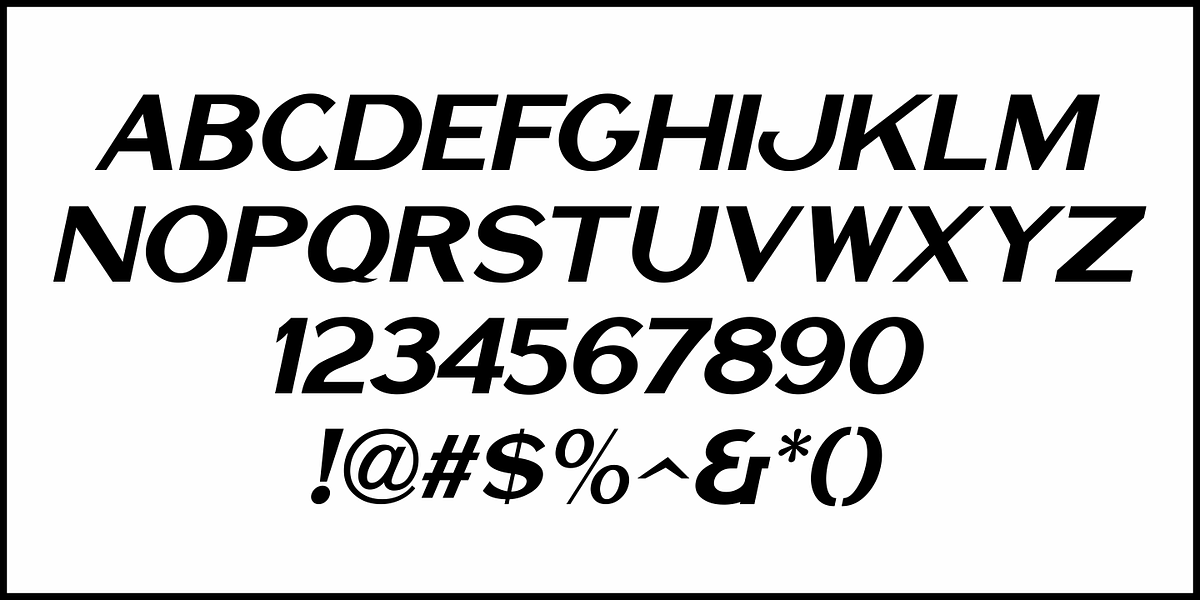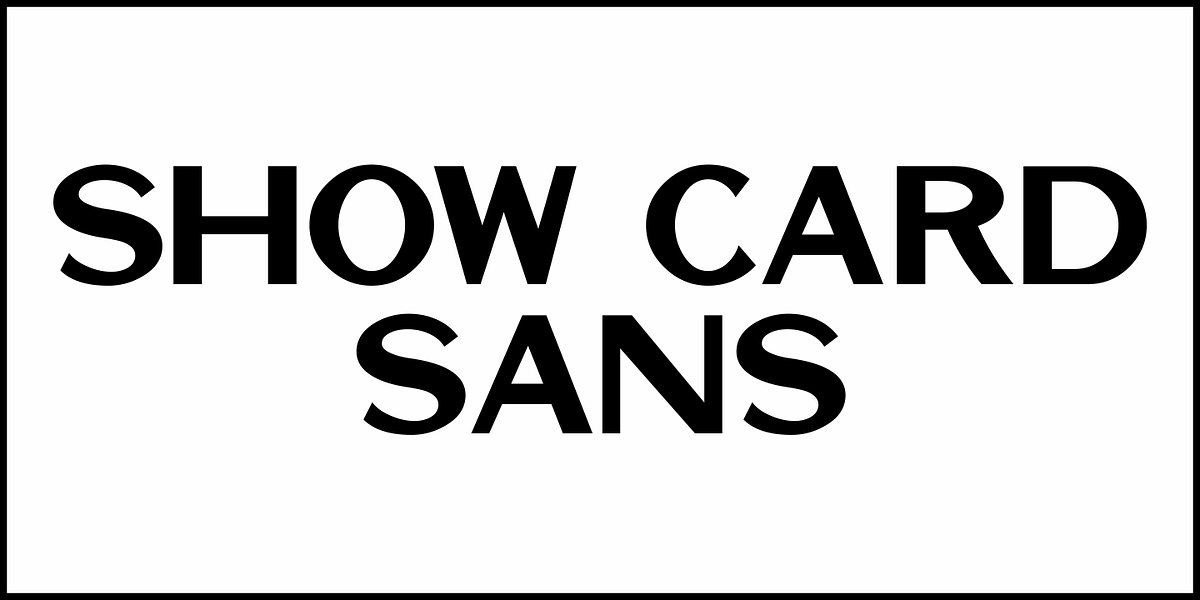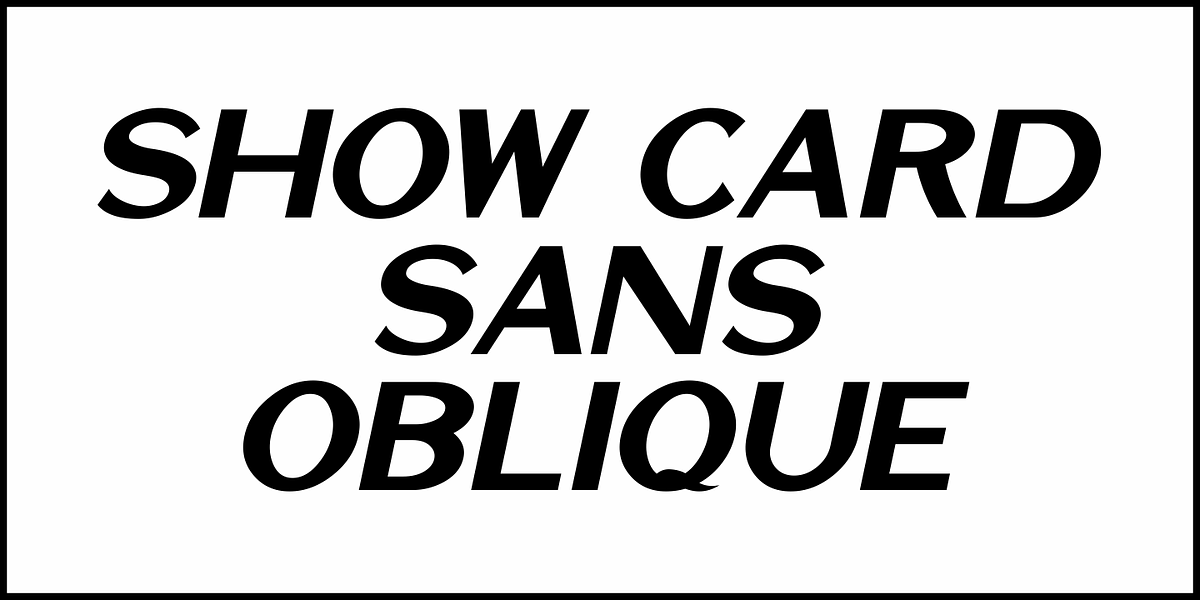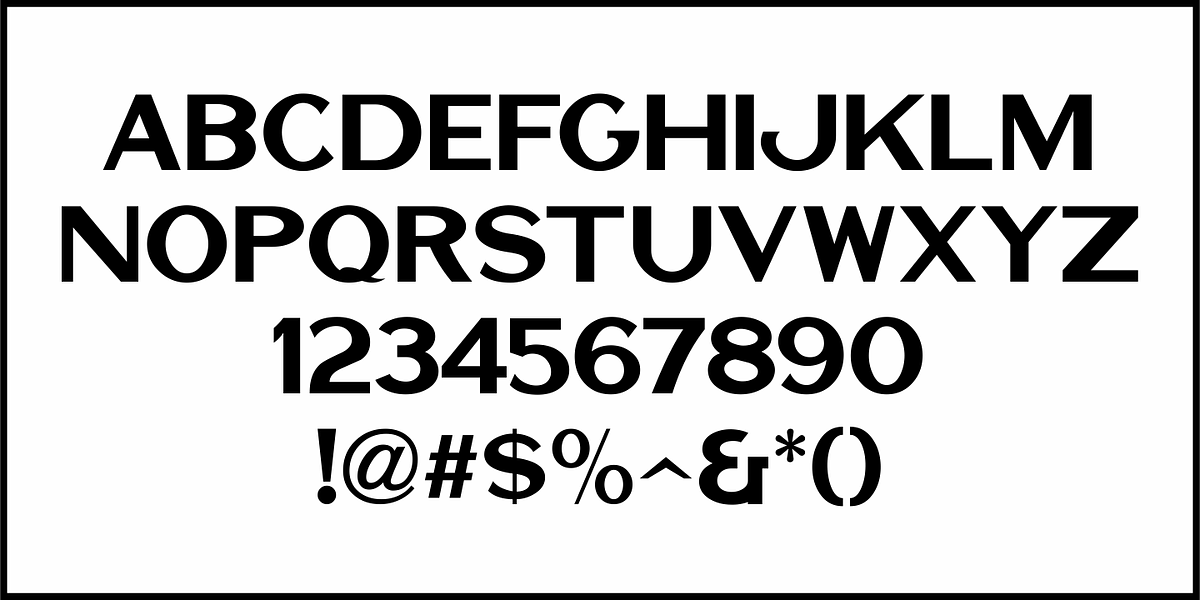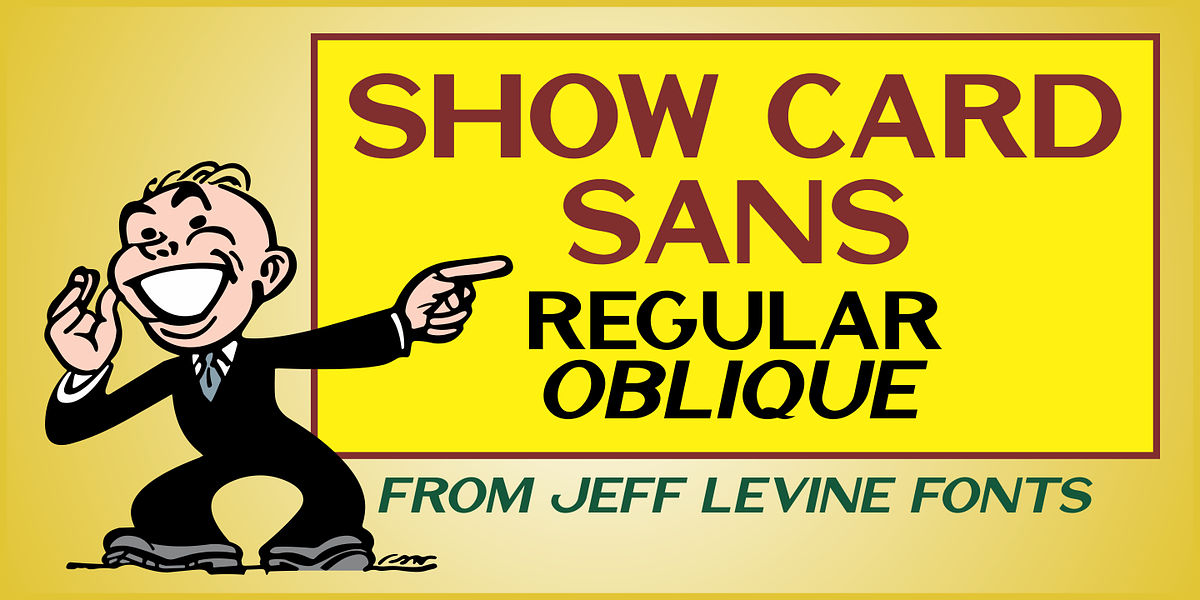
Show Card Sans JNL
Show Card Sans JNL (available in both regular and oblique versions) is based on a chart showing the basic construction of sans serif lettering in the 1922 instruction book “Modern Show Card Writing”.